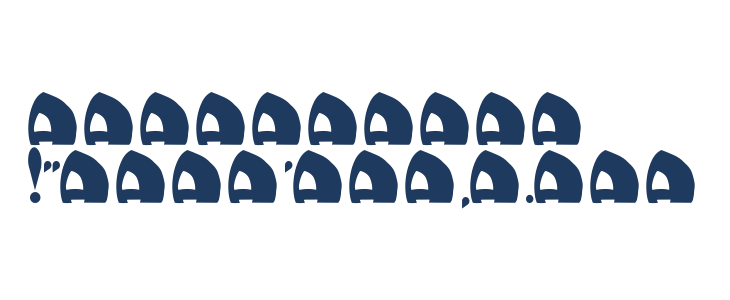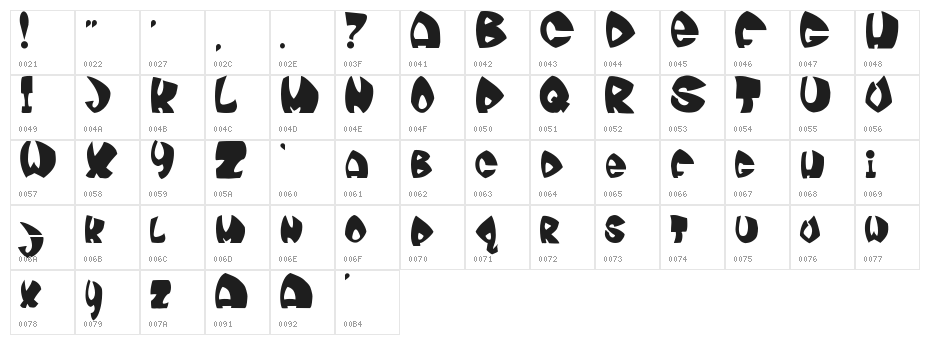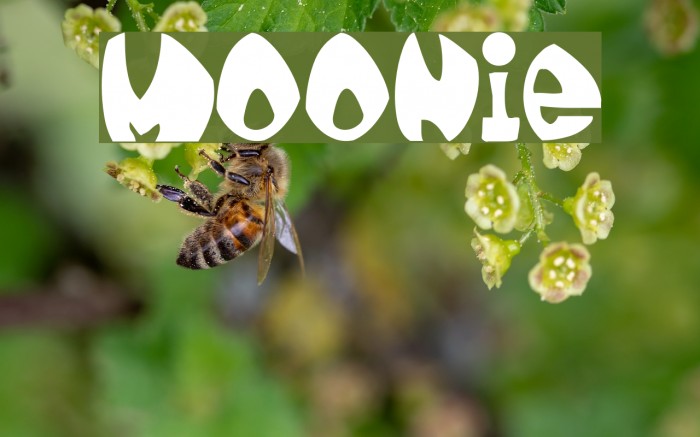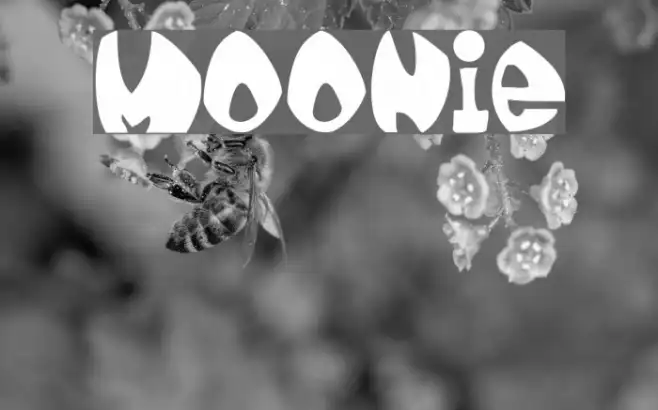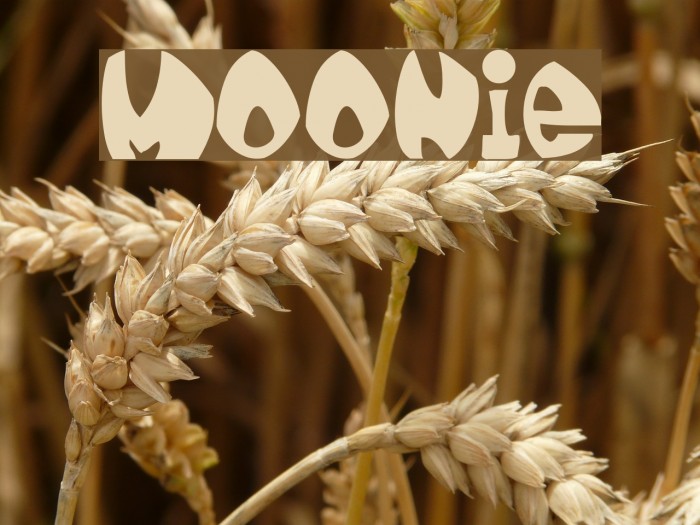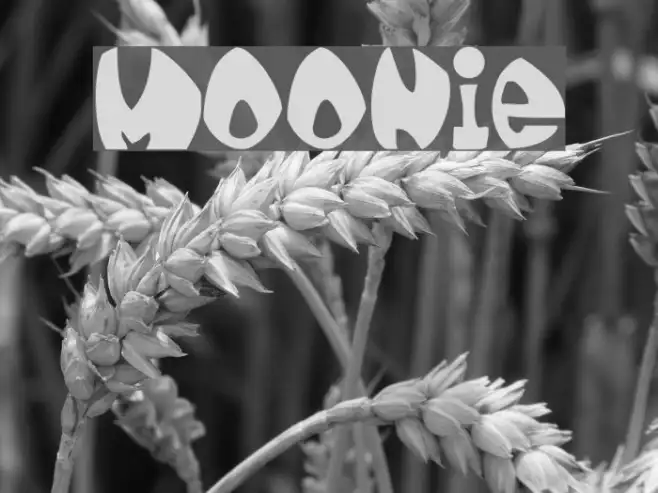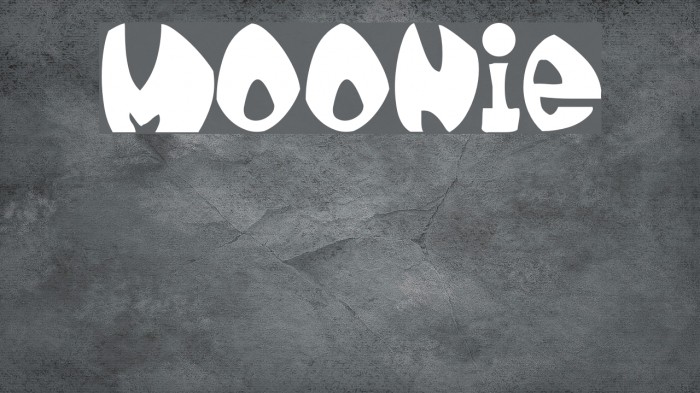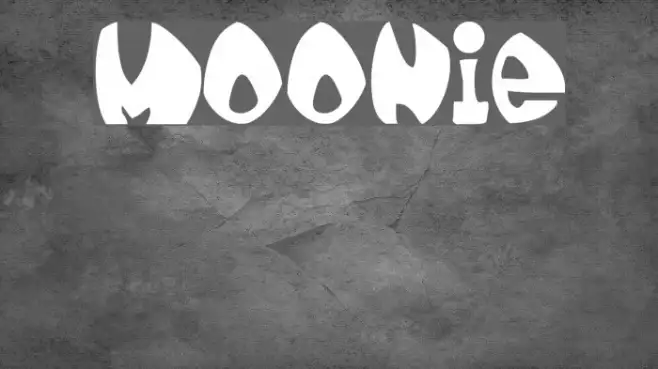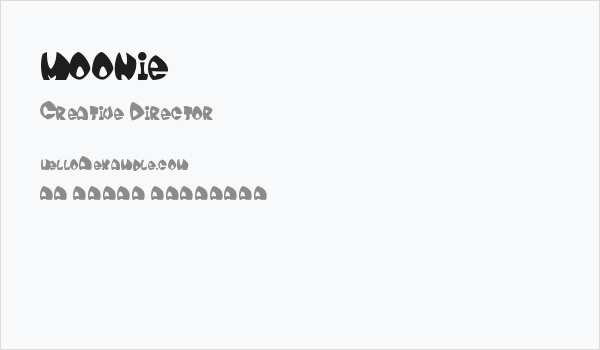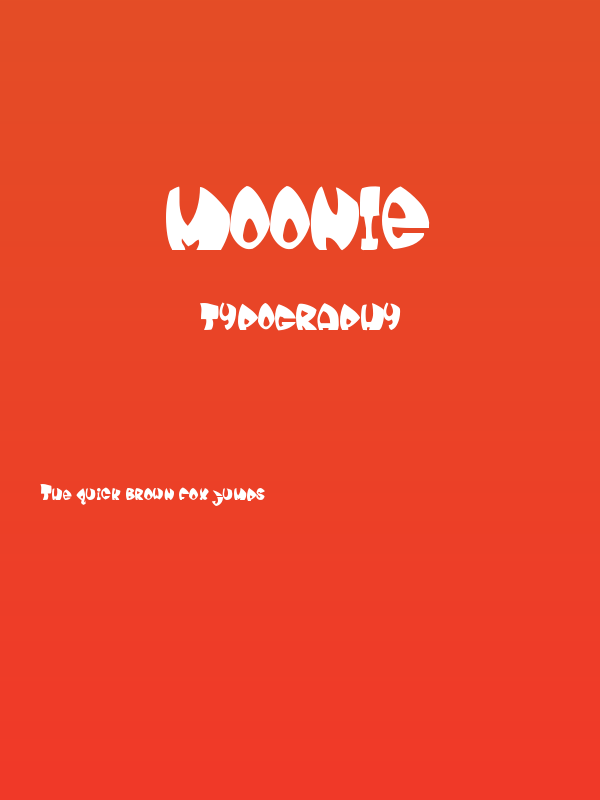
moonie Font
moonie Description
This font features a bold and playful design, characterized by its thick, rounded letterforms and unique cut-out shapes within each character. The style is reminiscent of retro or vintage aesthetics, with a modern twist that makes it stand out. The uppercase and lowercase letters maintain a consistent weight, providing a cohesive look across the alphabet. The numbers and special characters follow the same design principles, ensuring uniformity. This font's distinct appearance makes it ideal for creative and eye-catching projects.
Overall StyleRetro, Modern
Proposed ProjectsIdeal for posters, logos, children's books, and any project requiring a fun, eye-catching typeface.